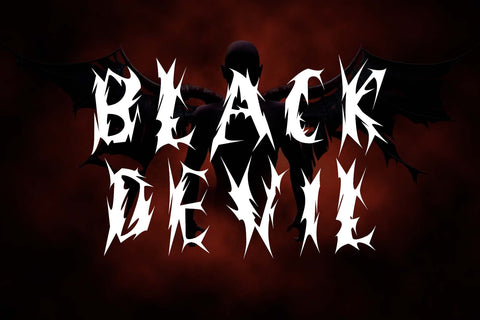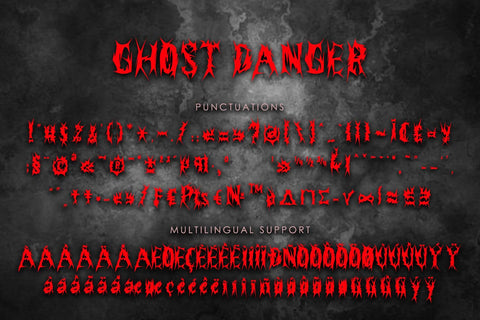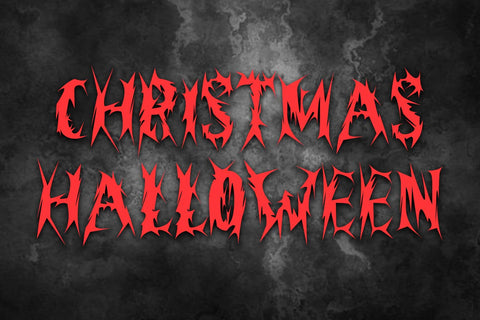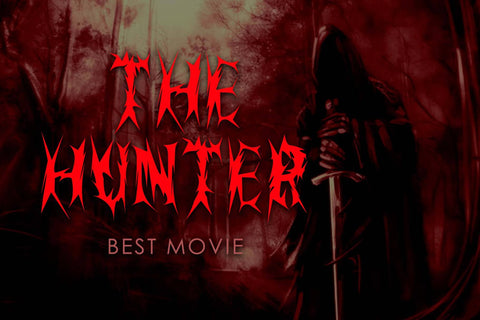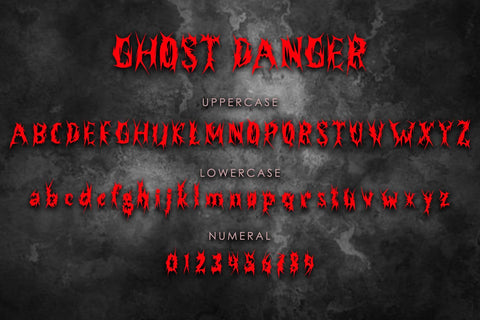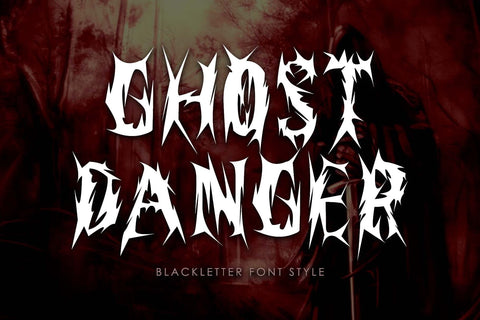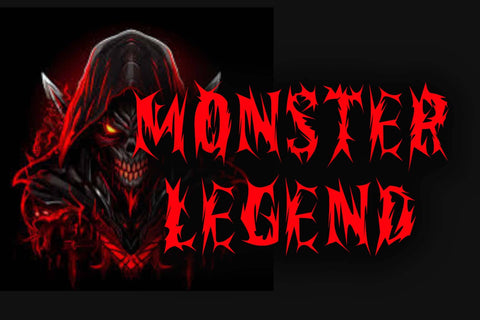
Ghost Danger
"Ghost Danger" is a spooky horror blackletter font. It comes with uppercase, lowercase, numbers, punctuation, and multilingual support. It is perfect for use on Halloween, posters, banners, branding, stickers, logos, fall, Christmas, movie titles, comic titles, and more.